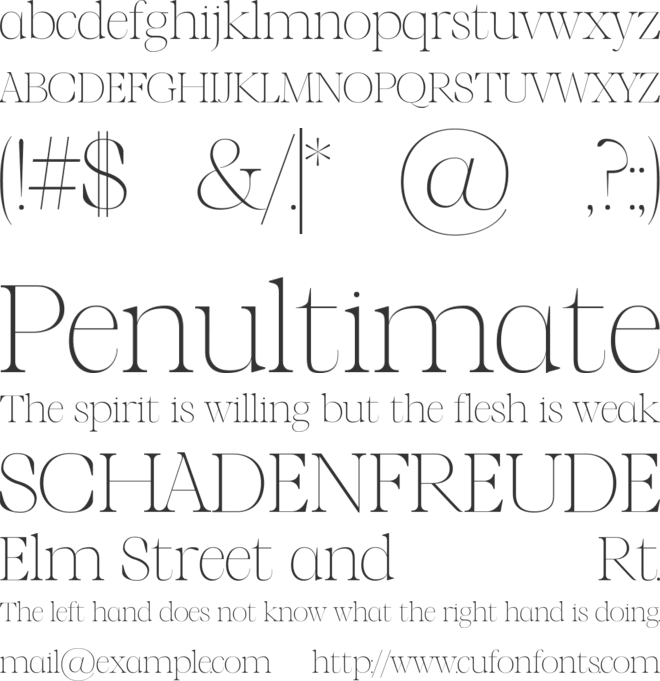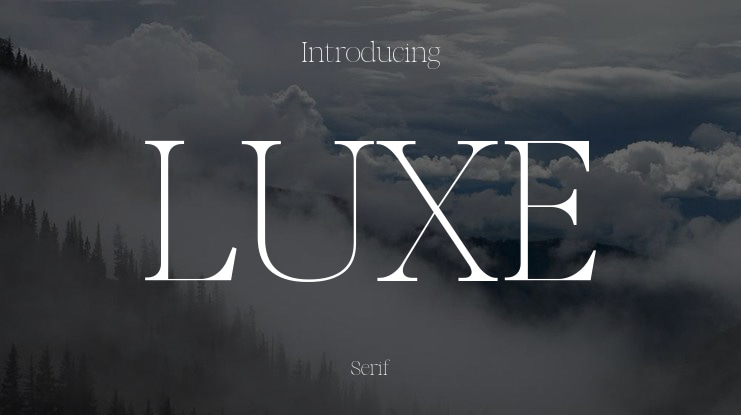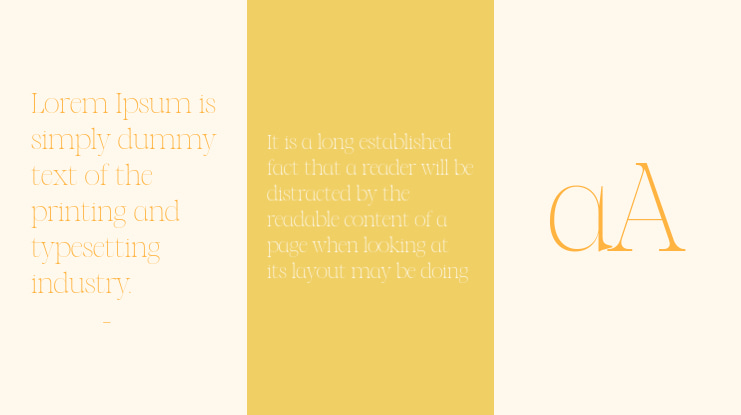
LUXE Font Family
Luxe is a minimalist serif with high-end elegance and multilingual support—perfect for luxury branding, editorial finesse, and refined packaging.